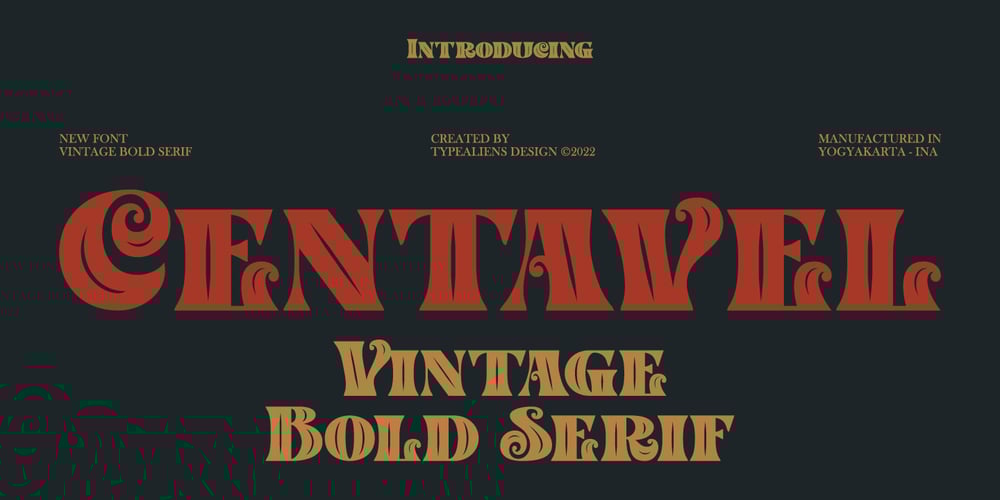
Centavel Font Family was designed by Ilham Wahyu and published by Ilhamtaro. Centavel contains 1 styles and family package options. CENTAVEL is a vintage bold serif typeface, with a strong and unique character, the center of the letter has a cavity to add to the vintage impression. This font is perfect for headlines or titles.This font is an all caps font.To enable the OpenType Stylistic alternates, you need a program that supports OpenType features such as Adobe Illustrator CS, Adobe Indesign & CorelDraw X6-X7.Cheers!